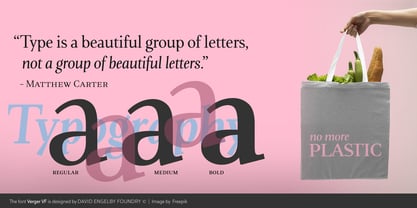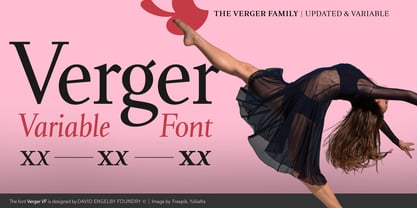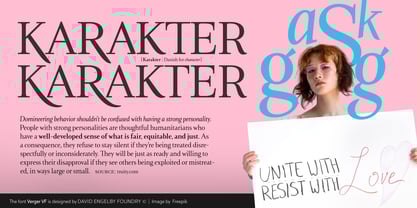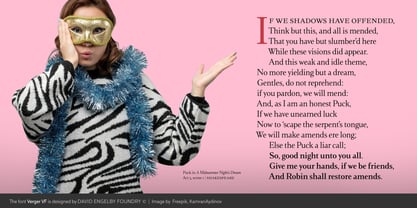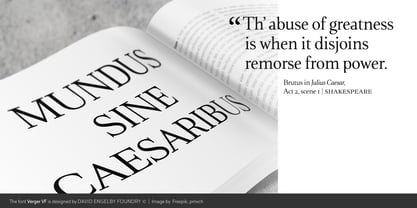
Verger Variable Font
by David Engelby Foundry
The Verger Variable Font Font Family was designed by David Engelby and published by David Engelby Foundry. Verger Variable Font contains 2 styles and family package options.
The Verger typeface is back as a variable font! You can now use all your desired weights ranging from regular to bold, or you can choose between the three predefined weights: regular, medium and bold. The differences between the regular and the bold version are fine tuned to maintain legibility as its core principle.
This edition of Verger has all the benefits of the classic serif font, building on the most common characteristics of all the previous Verger designs. There are specific numeral designs for small caps as well as default figure style numerals and old style numerals. This font also has many special alternative upper case characters in order to create typographic designs with a focus on beautiful details.